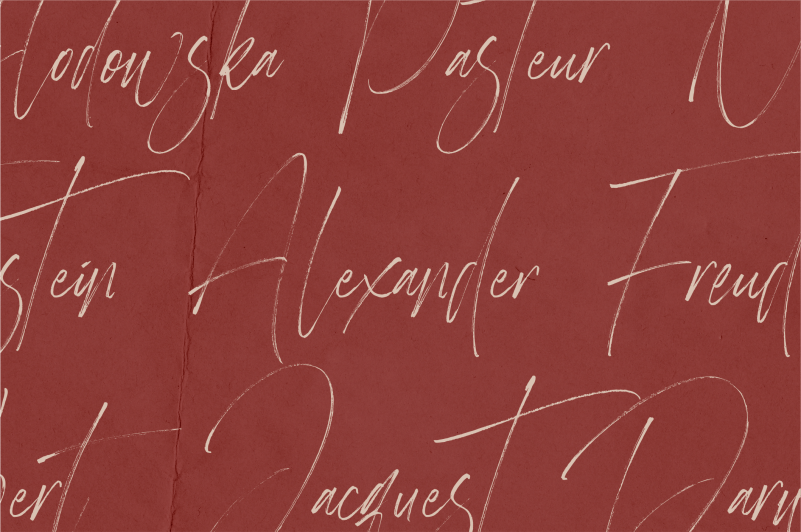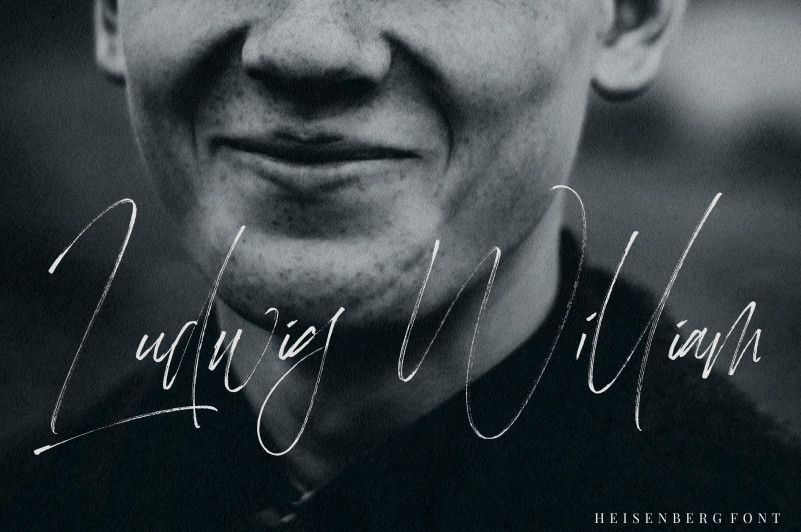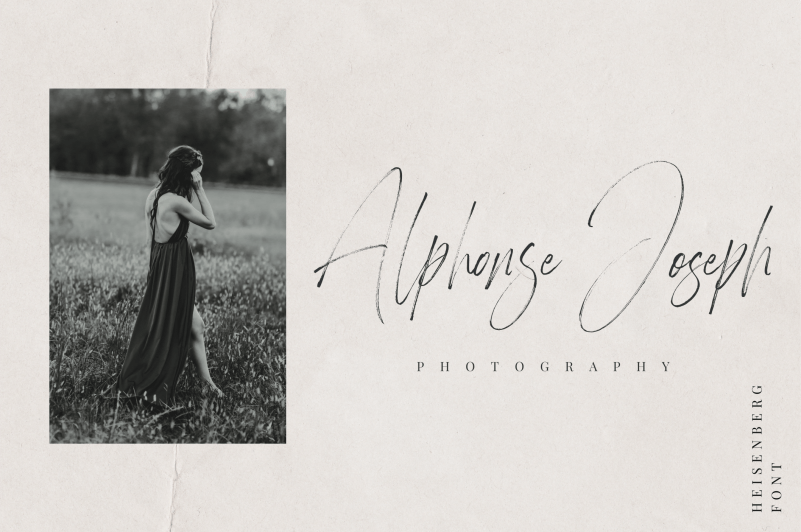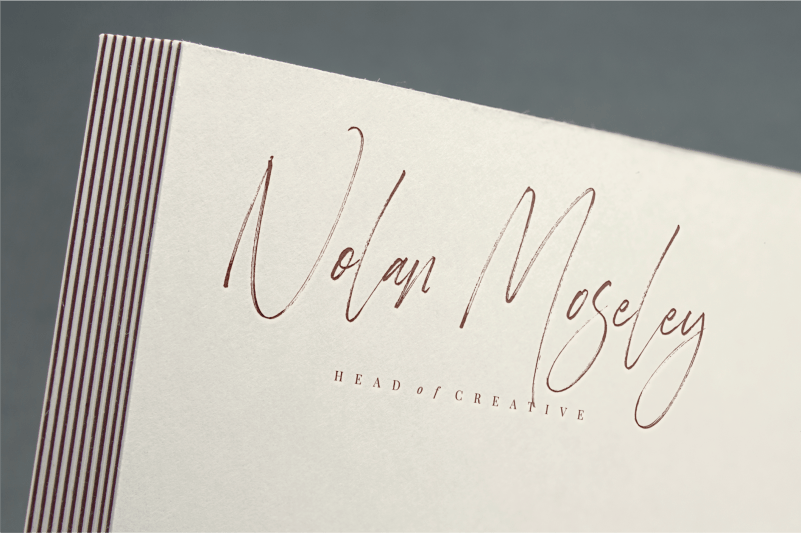
Heisenberg Signature Font
Heisenberg is a font with wild flow, natural expressions, without leaving an elegant impression. This font is handmade, with a spontaneous and free flow. This font also comes with alternates. Heisenberg will be able to fulfill your design needs such as packaging, merch, logo, branding, and many others.